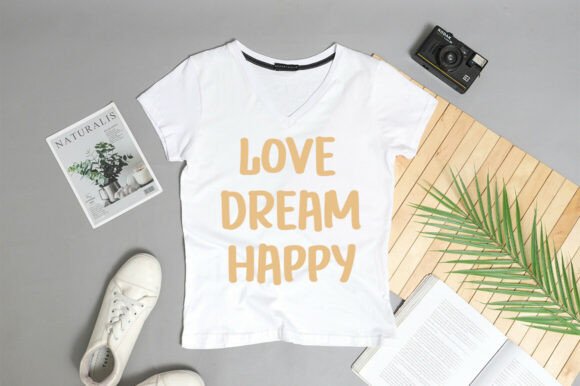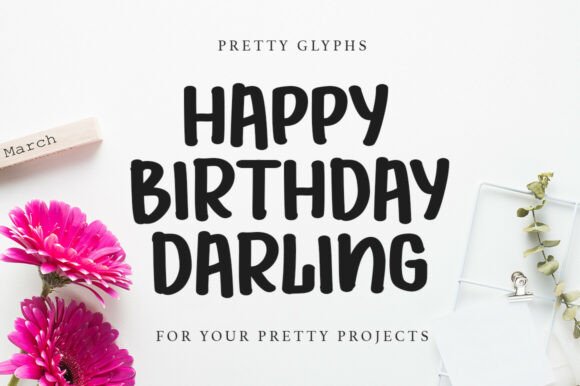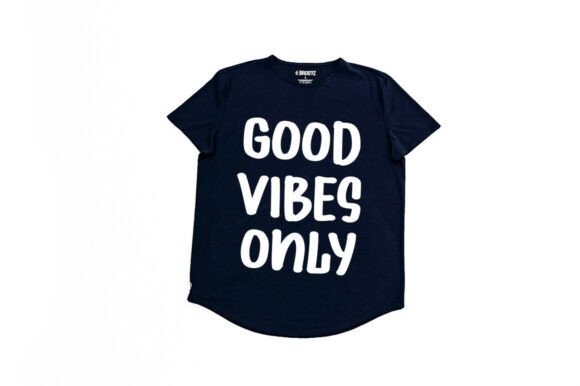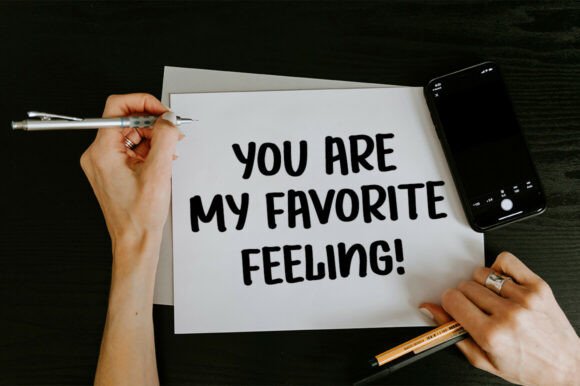
Introduction to Novaline Brush Font
Novaline Brush font is a high-impact, street-style display typeface that carries the energy of a fresh coat of paint.
This Novaline Brush typeface features heavy, marker-like strokes with rounded terminals, giving it a modern, urban feel that is perfect for youth-centric branding The Novaline Brush font is an ideal choice for streetwear labels, music festival posters, or extreme sports graphics where bold visibility is key.
Key Features of Novaline Brush Font
Why Choose Novaline Brush Font?